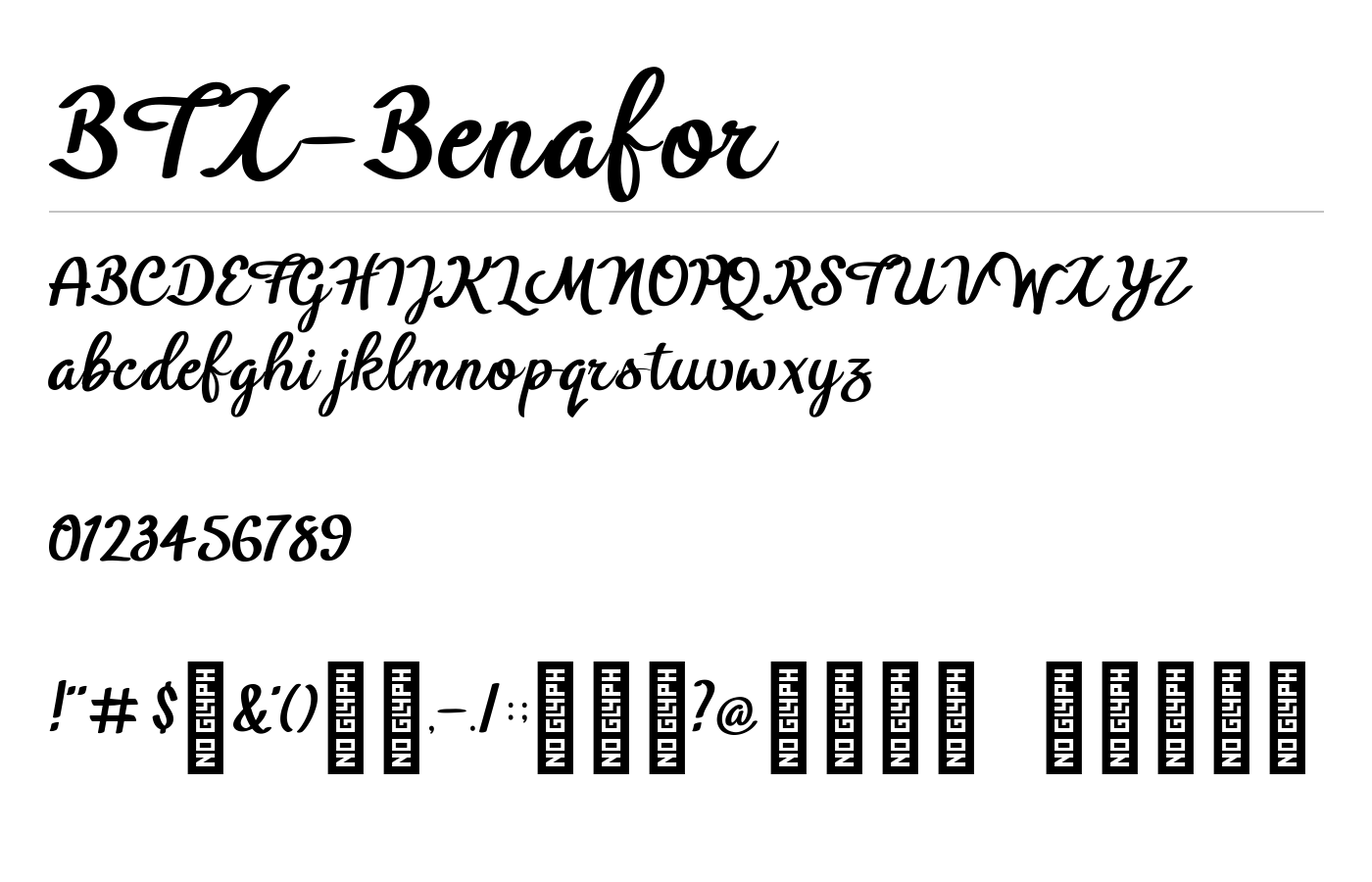
BTX-Benafor is a graceful script font with a medium weight and fluid, cursive letterforms that convey a friendly yet refined personality. Its smooth strokes and elegant curves make it ideal for invitations, branding, and creative headlines where a touch of sophistication and warmth is desired. This font works best in designs that seek to blend classic charm with a modern, handwritten feel.
BTX-Benafor Font